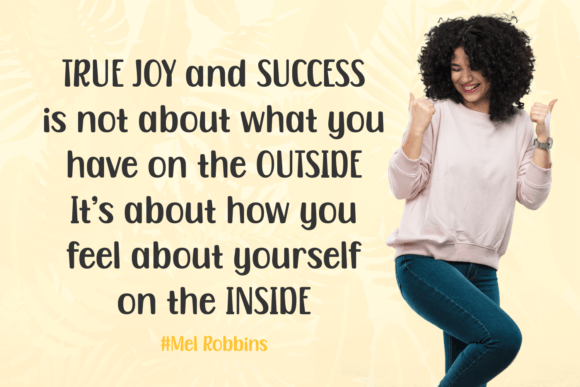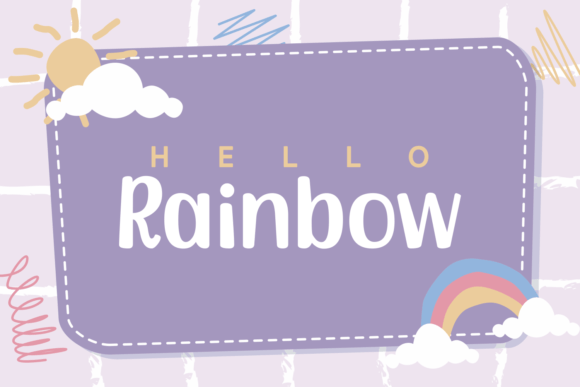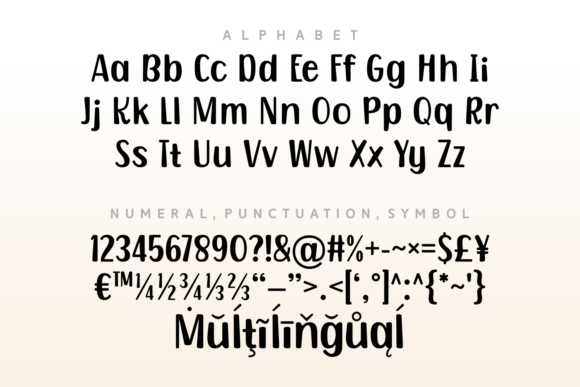
Brown Shugar Font: Adding a Touch of Whimsy to Your Designs
In the world of typography, fonts play a crucial role in conveying the tone and personality of a design. For crafters and designers looking to add a dash of fun and quirkiness to their projects, Brown Shugar font is an excellent choice. This handwritten font is carefully crafted to bring a beautiful and refreshing look to your designs, making it perfect for a wide range of creative endeavors.
The Charm of Brown Shugar Font
Brown Shugar font is a delightful addition to the world of typography. Its unique, handwritten style is characterized by its irregularities and imperfections, which give it a charming, homemade feel. The font’s quirky nature makes it an excellent choice for designers who want to add a personal touch to their work. Whether you’re creating invitations, branding materials, or social media graphics, Brown Shugar font is sure to make your designs stand out.
Key Features of Brown Shugar Font
- Handwritten style: Brown Shugar font boasts a beautiful, handwritten style that adds a touch of warmth and personality to your designs.
- Quirky and fun: The font’s irregularities and imperfections give it a quirky, fun feel that’s perfect for designers who want to add a dash of whimsy to their work.
- Refreshing look: Brown Shugar font is designed to bring a refreshing look to your designs, making it perfect for projects that require a unique and eye-catching approach.
- Versatile: This font is suitable for a wide range of design projects, from invitations and branding materials to social media graphics and more.
Uses for Brown Shugar Font
Brown Shugar font is an incredibly versatile font that can be used in a variety of design projects. Here are some ideas to get you started:
- Invitations: Use Brown Shugar font to create beautiful, one-of-a-kind invitations for weddings, birthday parties, and other special occasions.
- Branding materials: Add a touch of personality to your branding materials, such as business cards, brochures, and letterheads, with Brown Shugar font.
- Social media graphics: Use Brown Shugar font to create eye-catching social media graphics that showcase your brand’s personality.
- Crafting projects: Brown Shugar font is perfect for crafters who want to add a personal touch to their projects, such as handmade cards, scrapbooking, and more.
Tips for Using Brown Shugar Font
To get the most out of Brown Shugar font, here are some tips to keep in mind:
- Pair with complementary fonts: Brown Shugar font pairs well with clean, sans-serif fonts. Try pairing it with fonts like Arial, Helvetica, or Open Sans.
- Use contrasting colors: Brown Shugar font looks best when paired with contrasting colors. Try using a bold, bright color to make your text stand out.
- Experiment with sizes: Brown Shugar font can be used in a variety of sizes, from large headings to small body text. Experiment with different sizes to find the perfect fit for your design.
Brown Shugar font is a fun and quirky handwritten font that’s perfect for designers and crafters who want to add a touch of personality to their designs. With its unique, irregular style and refreshing look, Brown Shugar font is sure to make your designs stand out. Whether you’re creating invitations, branding materials, or social media graphics, Brown Shugar font is an excellent choice. So why not give it a try and see how it can elevate your designs?